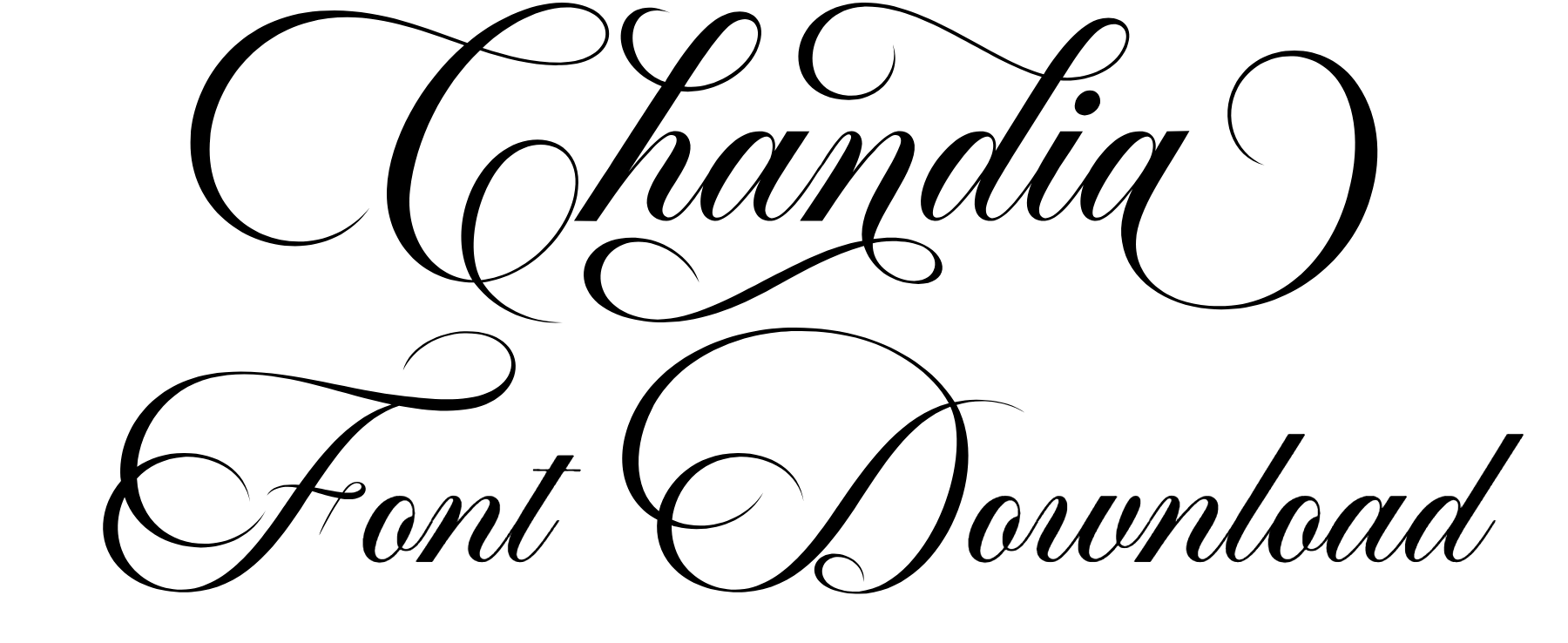
Type artist Måns Grebäck designed Chandia, a dramatic, high-precision calligraphy script typeface that blends traditional copperplate engraving with a sleek, contemporary feel. Released in late 2025, this font delivers an exceptionally elegant, sweeping layout that transforms any project into a refined, high-end display piece.
Chandia
Chandia is a calligraphy font created by Mans Greback and released through Mans Greback AB (2025).
- OpenType features: Ligatures (including optional ones), swashes, 13 stylistic sets, old-style numbers and fractions